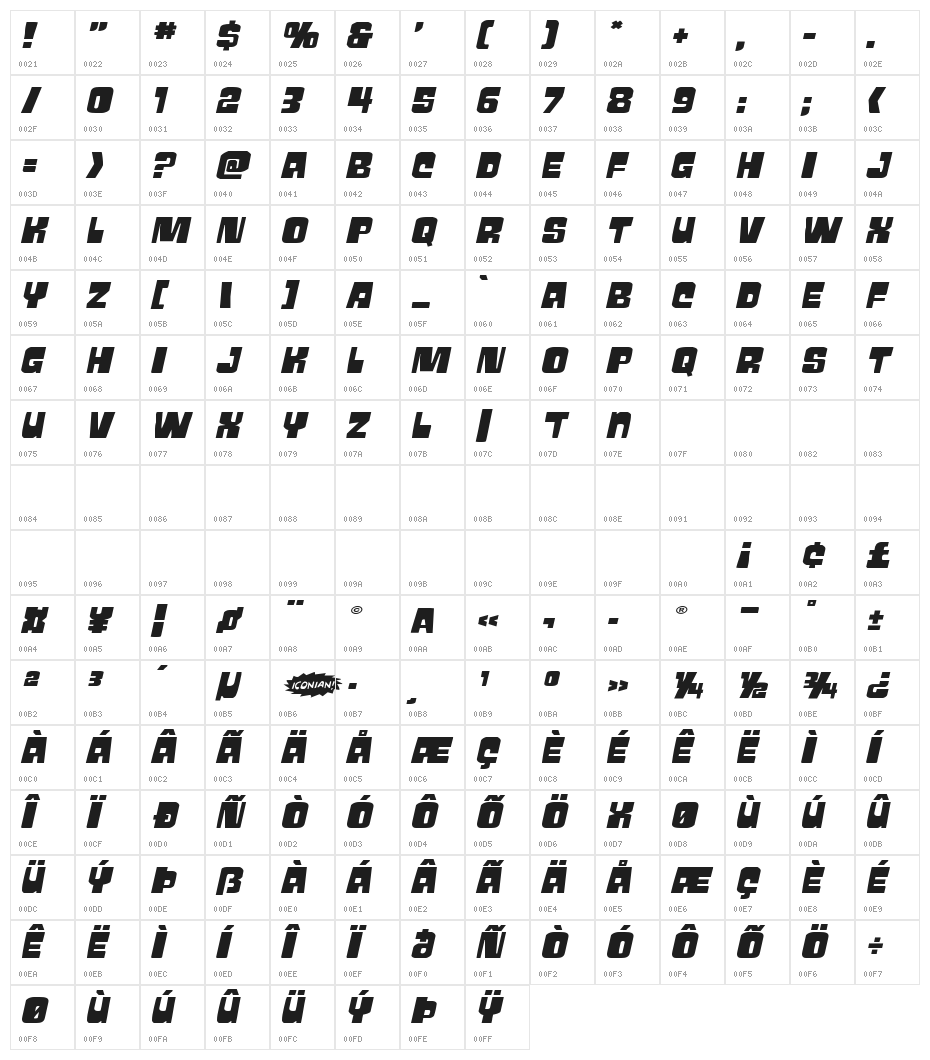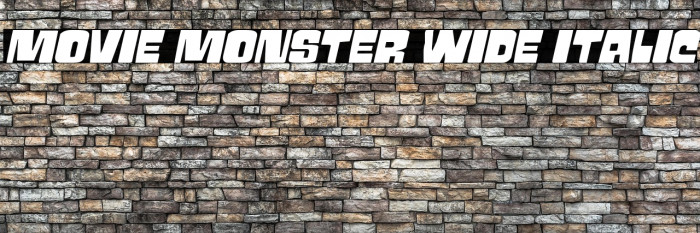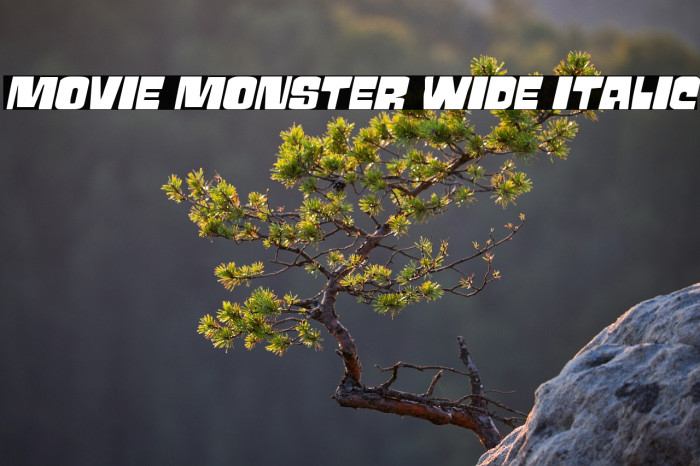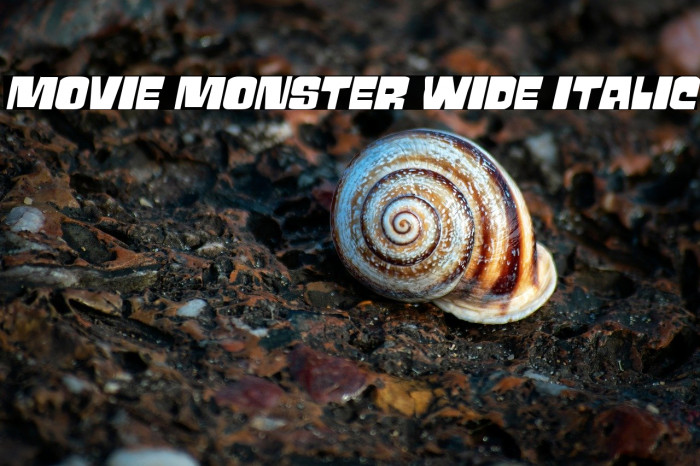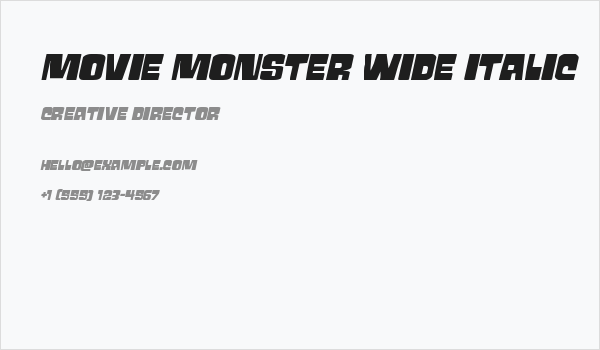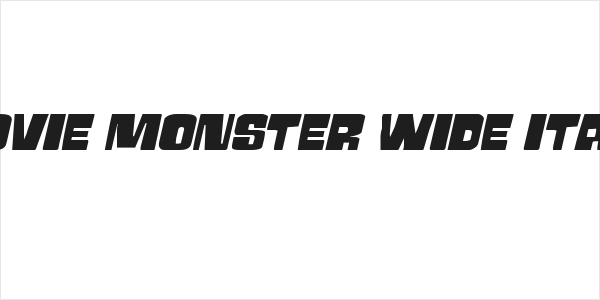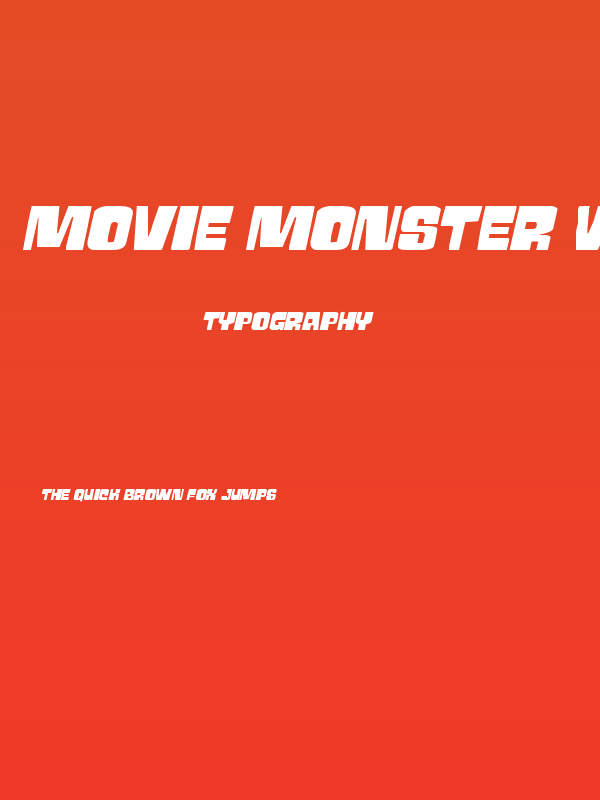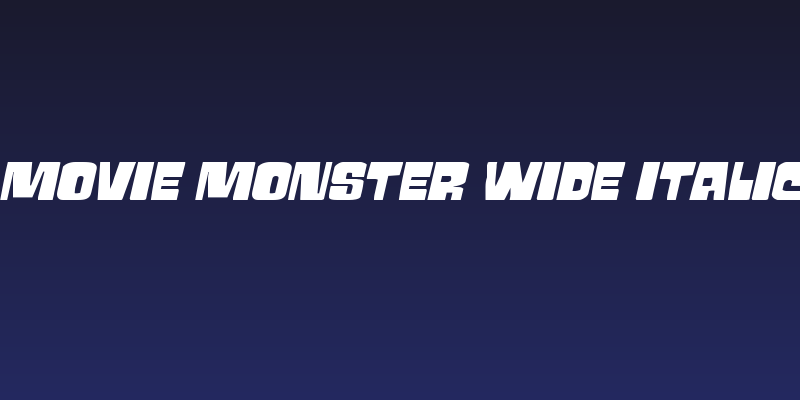
Movie Monster Wide Italic Font
Movie Monster Wide Italic Description
This font features a bold and wide design with an italic slant, giving it a dynamic and impactful appearance. The characters are robust and heavily weighted, making them stand out prominently. The wide letterforms are slightly condensed, providing a compact yet powerful look. The italic angle adds a sense of motion and urgency, suitable for attention-grabbing headlines or titles. The font includes a full set of uppercase and lowercase letters, numbers, and a variety of special characters, ensuring versatility in design applications.
| Proposed Projects | Ideal for movie posters, video game covers, sports branding, and any project requiring a strong, attention-grabbing typeface. |